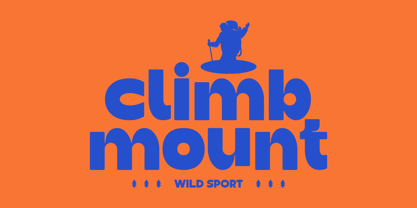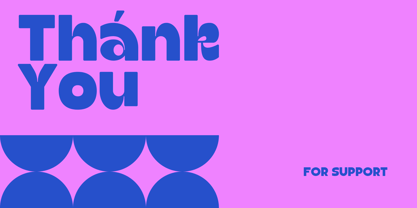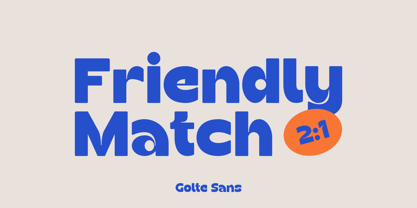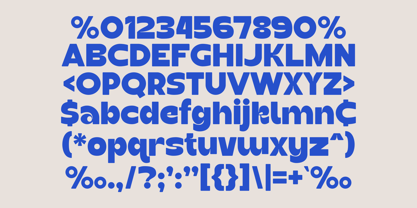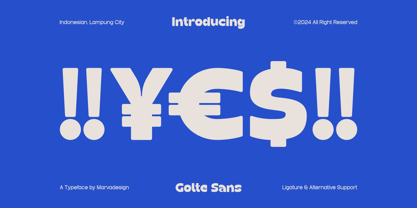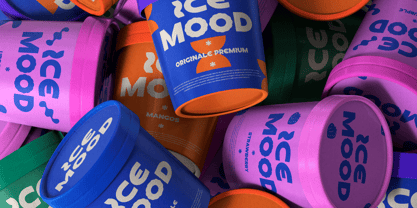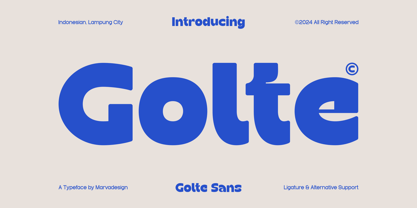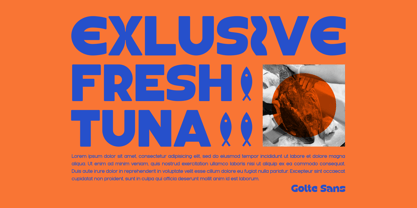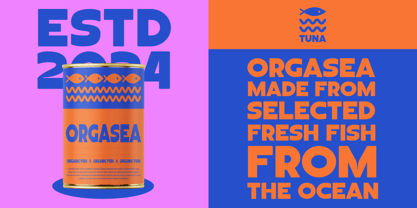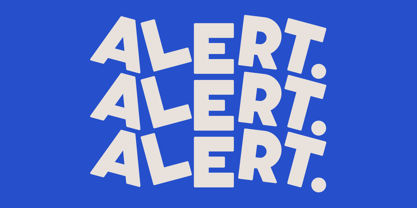
Golte
by Marvadesign
The Golte Font Family was designed by Febrie Setiawan and published by Marvadesign. Golte contains 1 styles. More about this family
Introducing Golte is a Modern Sans Serif font that stands out with its unique and distinctive design, making it instantly recognizable. Its bold weight and clean lines make it a versatile choice for a variety of design applications, including headlines, branding, packaging, and more. Golte combines modern aesthetics with a hint of character, ensuring your message is conveyed with both clarity and style. Its balance of thickness and elegance adds a contemporary edge to any project. Perfect for grabbing attention and leaving a lasting impression.
Designers: Febrie Setiawan
Foundry: Marvadesign